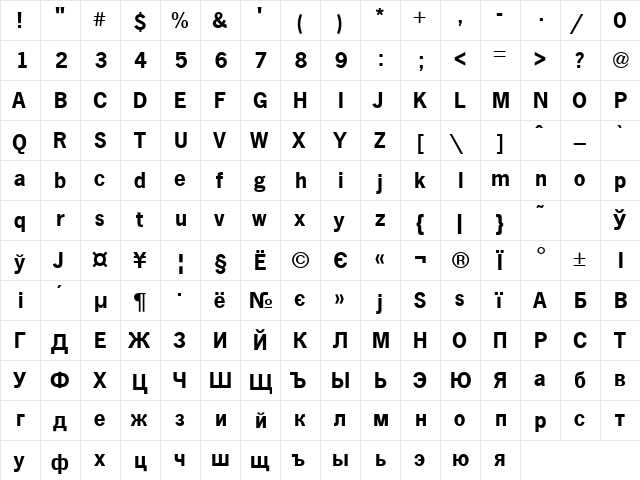
NewsGothic_A.Z_PS Bold
Design Context for NewsGothic_A.Z_PS Typeface
NewsGothic_A.Z_PS takes a clean, functional approach — its unadorned letterforms prioritise legibility and work reliably across screen and print environments. Its bold stroke weight gives it real presence on the page.
Well-suited to navigation labels, product packaging, and anywhere legibility at scale is essential.
Font Pairing: Use NewsGothic_A.Z_PS for headlines alongside a lighter-weight sans or serif for body copy to establish clear visual hierarchy.
Pro Tip: Use NewsGothic_A.Z_PS for UI labels, navigation, and short-form body copy where clean legibility is the priority.